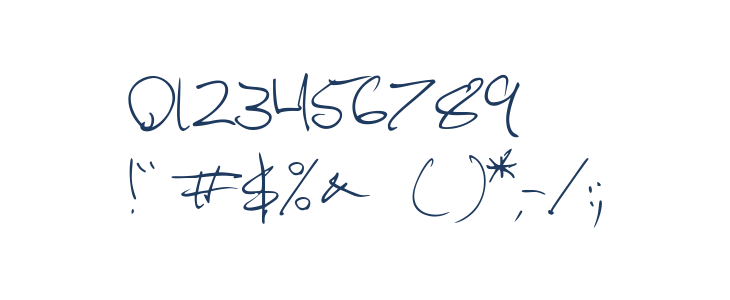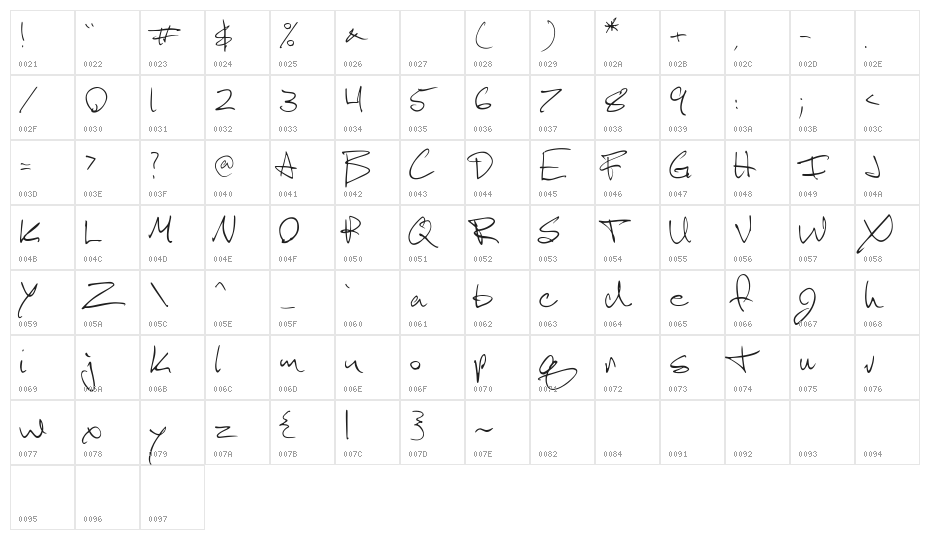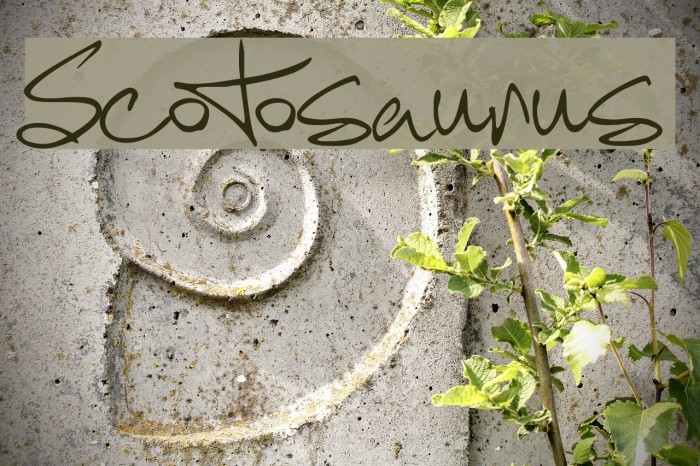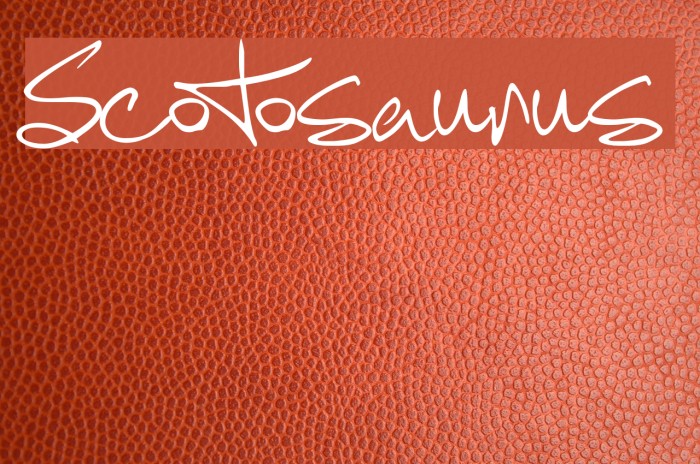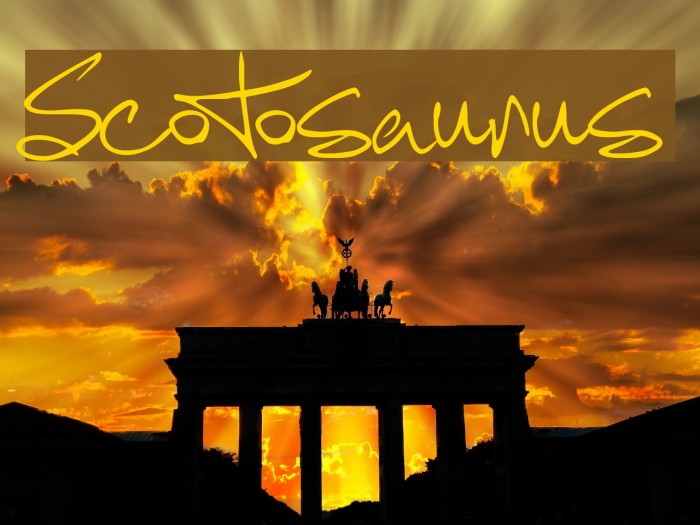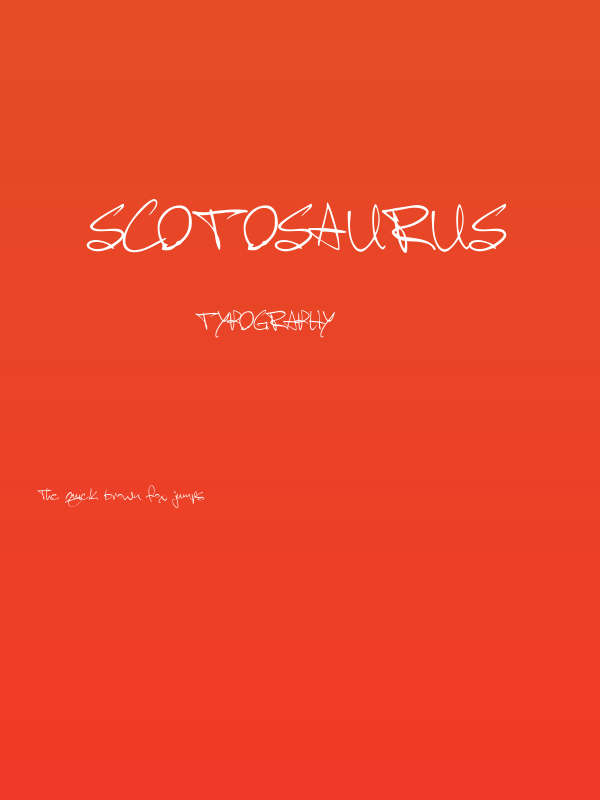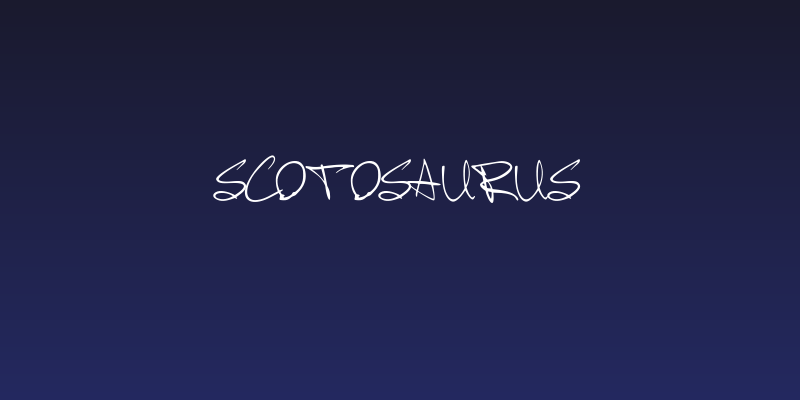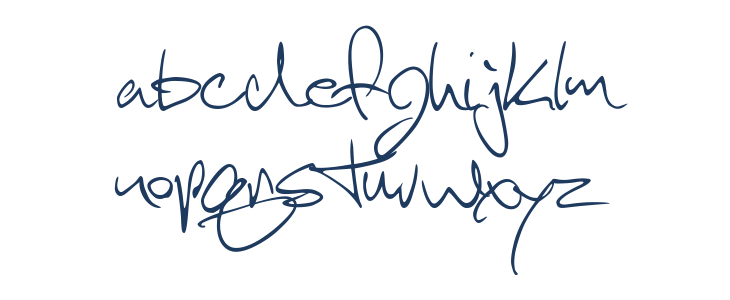
Scotosaurus Font
Scotosaurus Description
This font exhibits a dynamic and energetic handwritten style, characterized by its fluid and spontaneous strokes. The letters are irregular and vary in size, giving it an authentic, personal touch. The uppercase and lowercase letters maintain a consistent flow, while the numerals and special characters integrate seamlessly into the overall design. The font's informal and artistic nature makes it stand out, offering a sense of individuality and creativity.